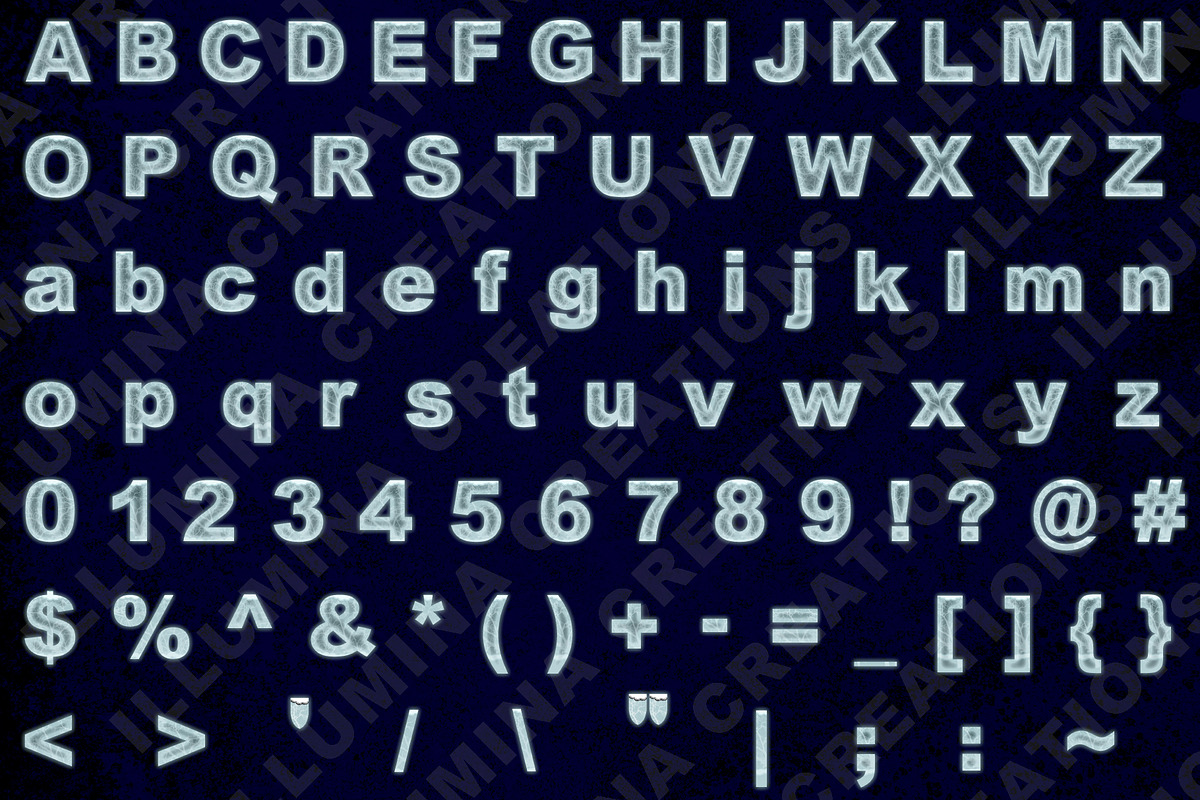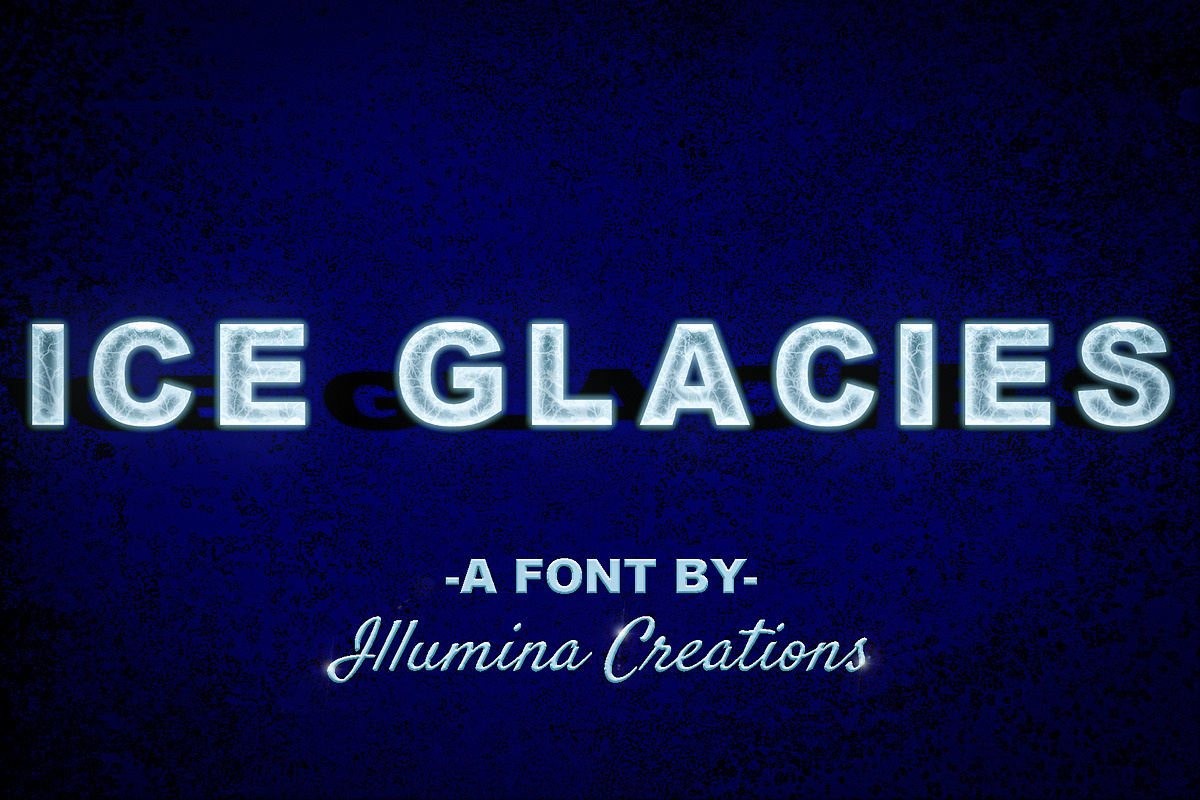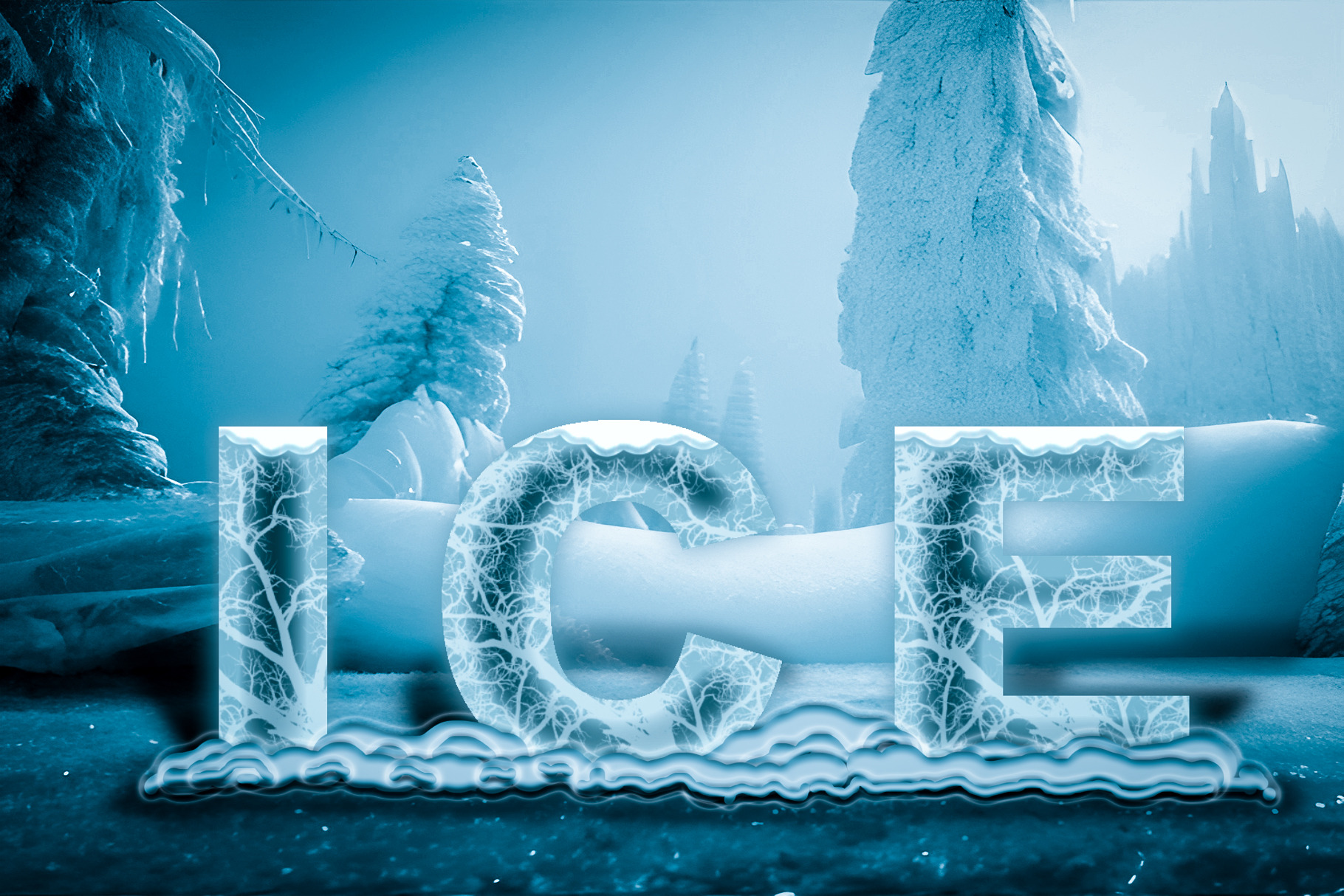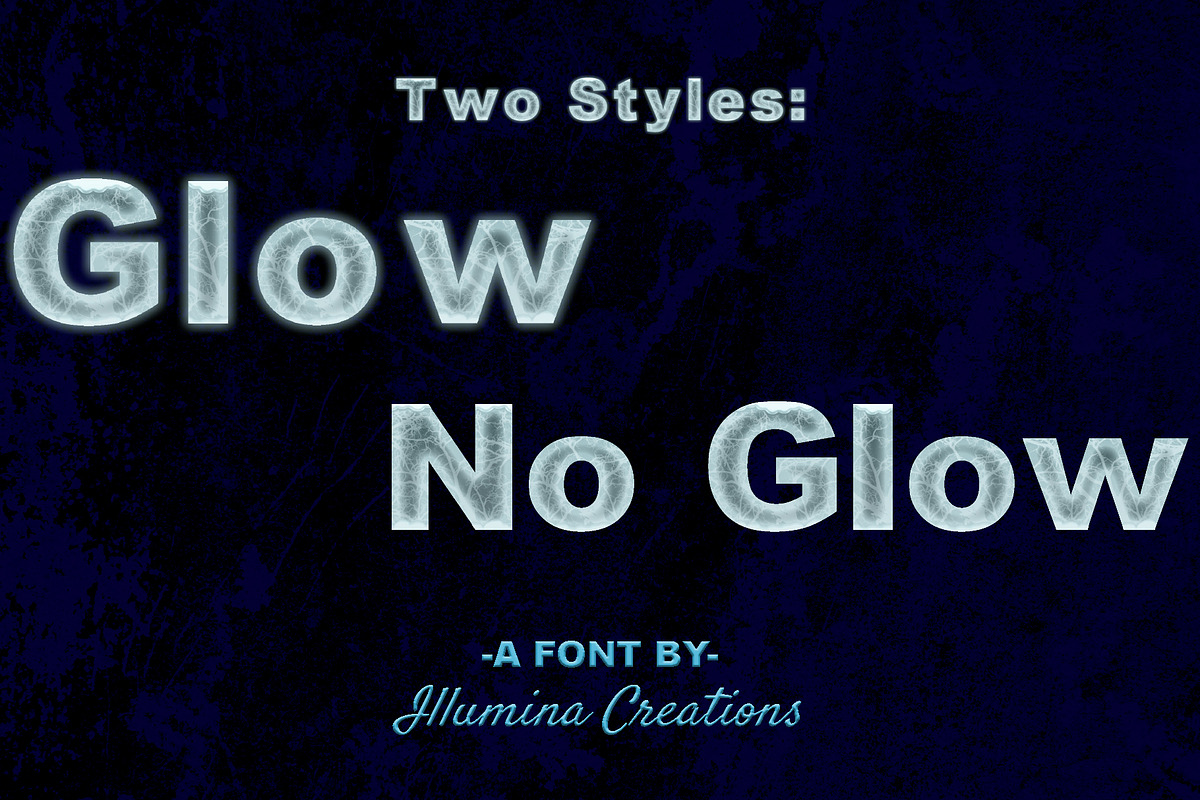
Ice Glacies - Frozen Icy Bitmap Font
Ice Glacies is a colorized 3d rendered bitmap typeface. This is a color bitmap opentype font optimized for use in Adobe Creative Cloud applications. Included two styles of the OTF font file - one with glow and another with no glow. In addition there are two sets of high resolution PNG files with transparent background.